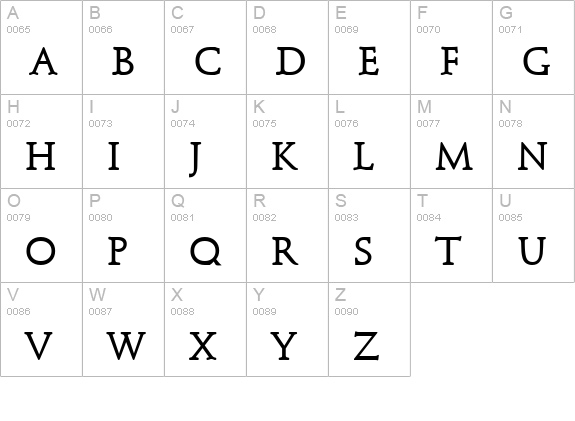
Schroeder Bold is a strong, high-contrast variant in the Schroeder typeface family \xE2\x80\x94 well suited to headlines, attention-grabbing titles, and strong calls-to-action.
Introducing Schroeder Bold, a captivating and versatile font that exudes confidence and sophistication in every letter. With its bold and commanding presence, this typeface effortlessly captures attention and leaves a lasting impression. Schroeder Bold is the perfect choice for a wide range of design projects, whether you're creating eye-catching logos, striking headlines, or impactful marketing materials. Its strong and sturdy letterforms are meticulously crafted to ensure legibility across various sizes and mediums, making it ideal for both print and digital applications. One of the most remarkable aspects of Schroeder Bold is its accessibility - it is freely available to download at FontsMarket.com. This means that designers and creatives can easily incorporate this outstanding font into their projects without any additional cost. Whether you're a professional designer or a passionate hobbyist, Schroeder Bold opens up a world of creative possibilities without breaking the bank. The design of Schroeder Bold is a perfect balance between modern aesthetics and timeless elegance. Its bold strokes and clean lines convey a sense of confidence and authority, while its subtle curves and refined details add a touch of sophistication. This harmonious combination gives Schroeder Bold a distinctive and memorable presence that stands out from the crowd. When it comes to versatility, Schroeder Bold truly shines. Its wide range of weights and styles allow for endless design possibilities, ensuring that you can find the perfect fit for any project. Whether you're aiming for a bold and impactful look or a more subtle and refined aesthetic, Schroeder Bold has got you covered. Elevate your designs to new heights with Schroeder Bold. Download this exceptional font today from FontsMarket.com and unleash your creativity without limits. With its captivating presence, seamless legibility, and free availability, Schroeder Bold is truly a game-changer in the world of typography.